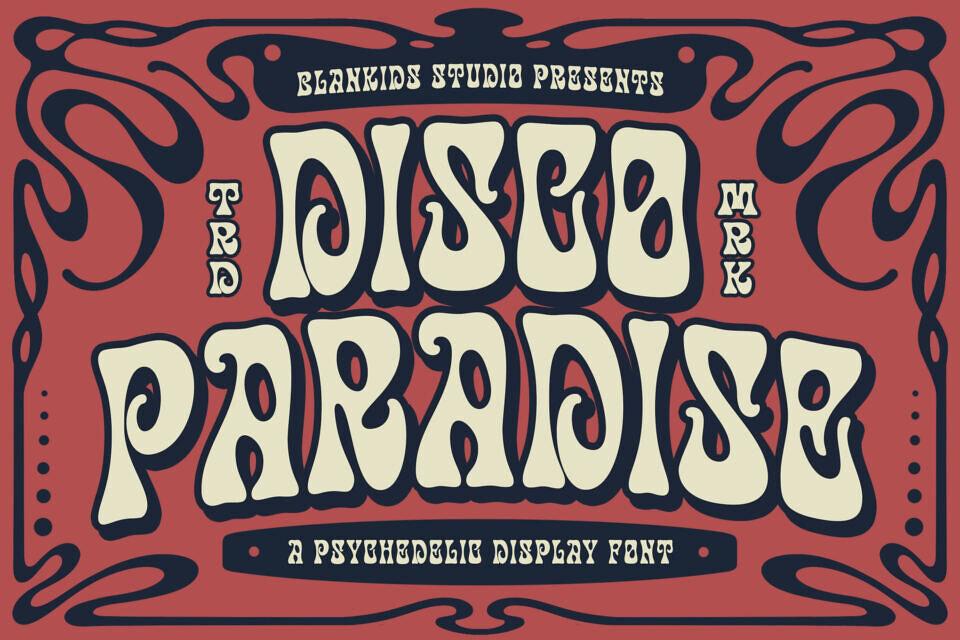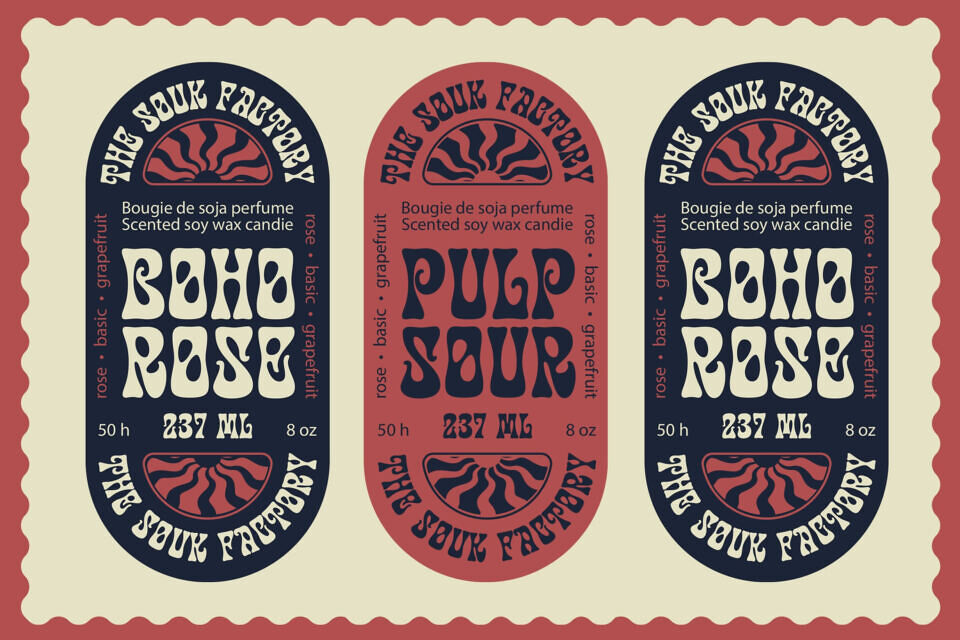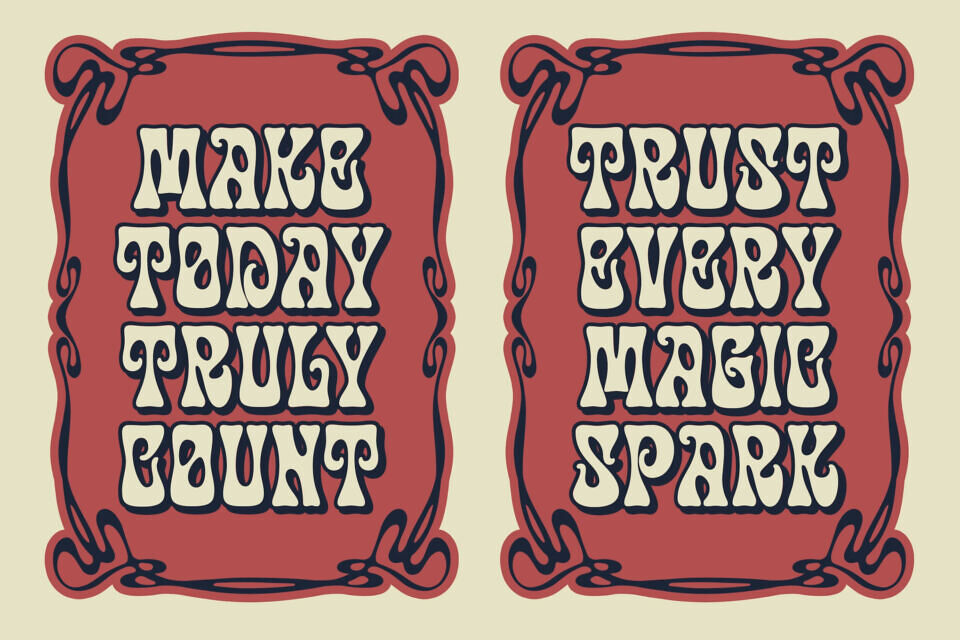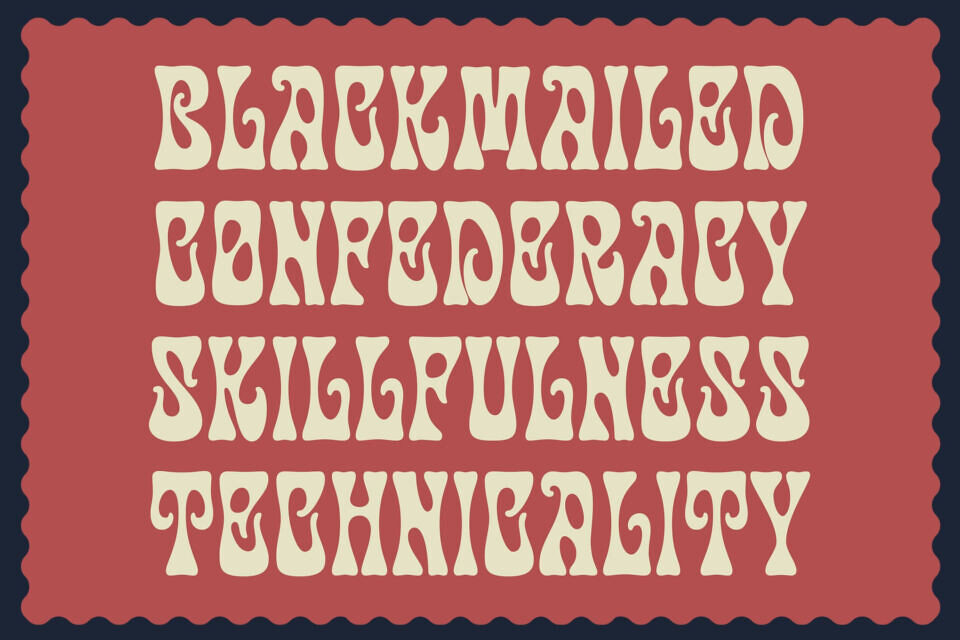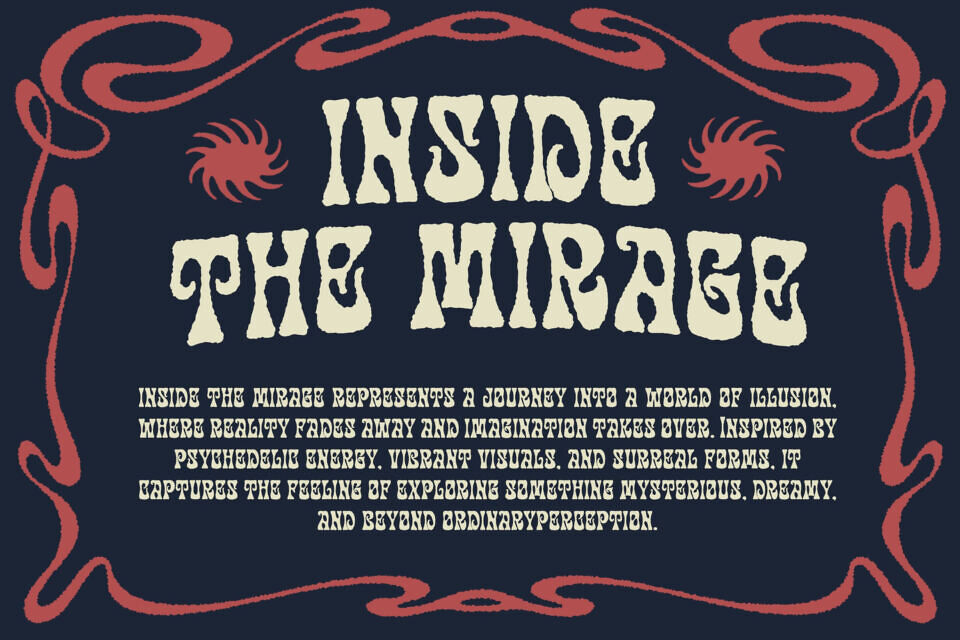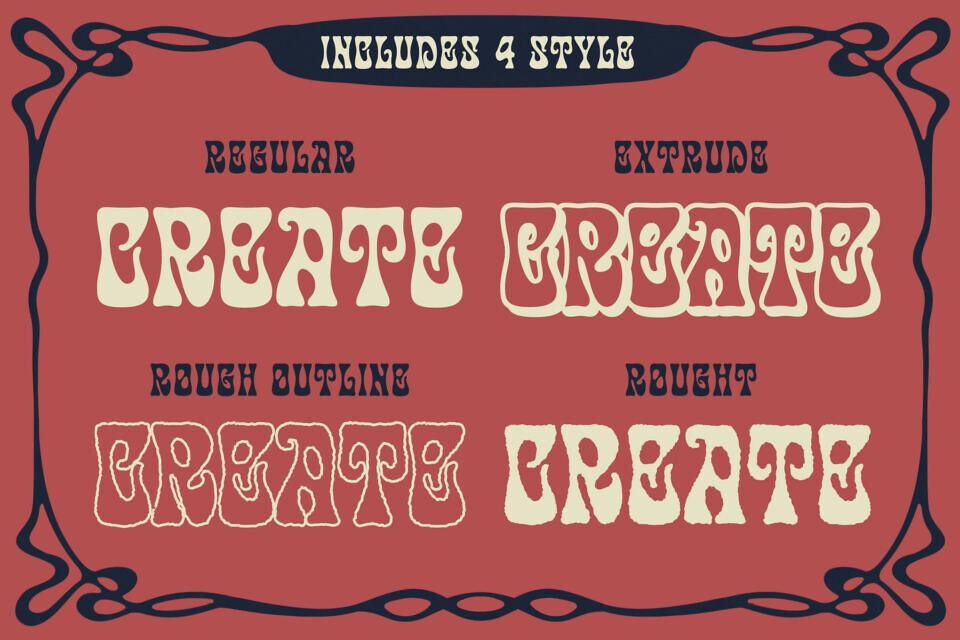
Disco Paradise is a bold psychedelic display font inspired by the vibrant spirit of 70s disco culture, groovy typography, and vintage retro aesthetics.
Designed with fluid curves, funky letterforms, and eye-catching character, this font is perfect for posters, album covers, branding, packaging, merchandise, and creative design projects. Disco Paradise brings nostalgic retro energy and authentic psychedelic vibes, making every design stand out with a unique vintage personality.